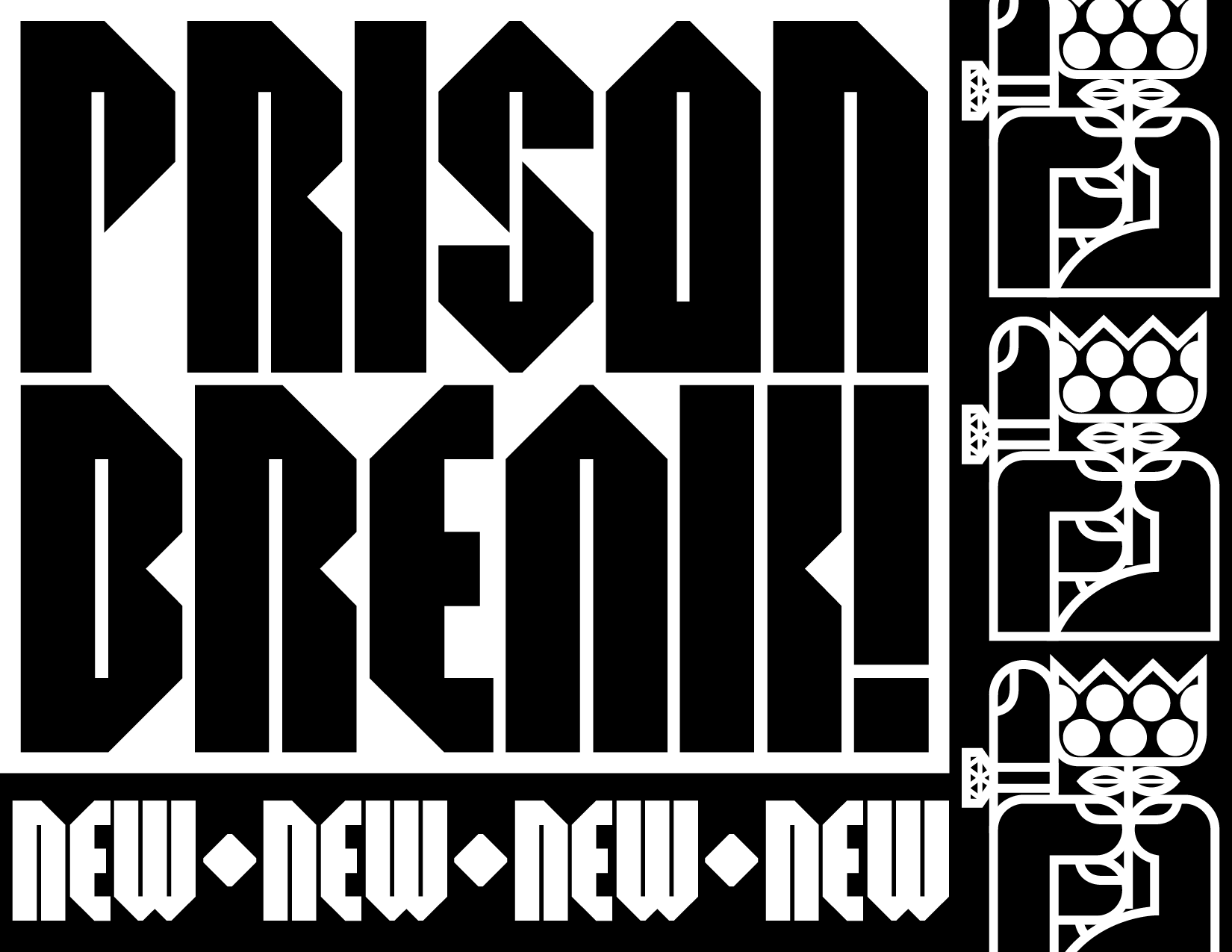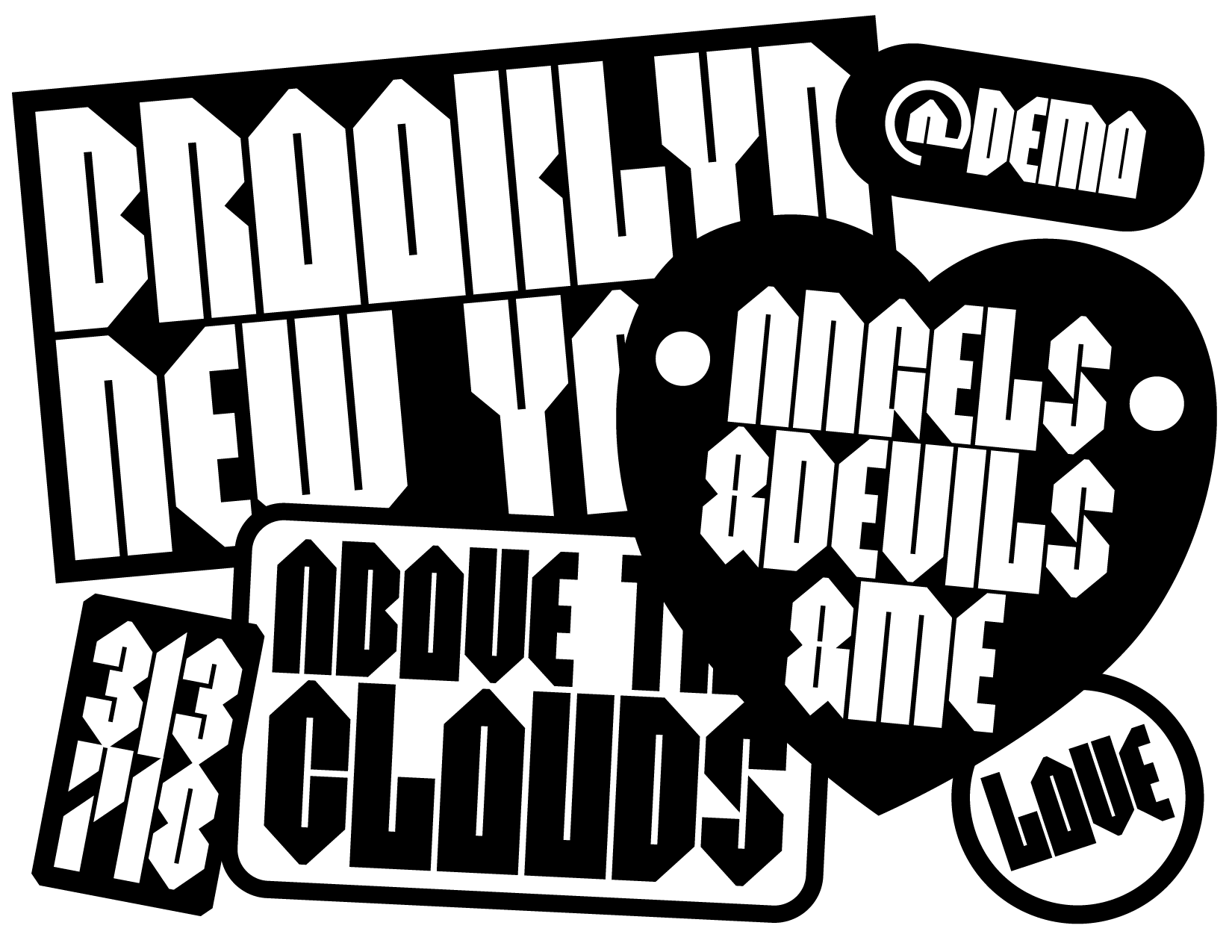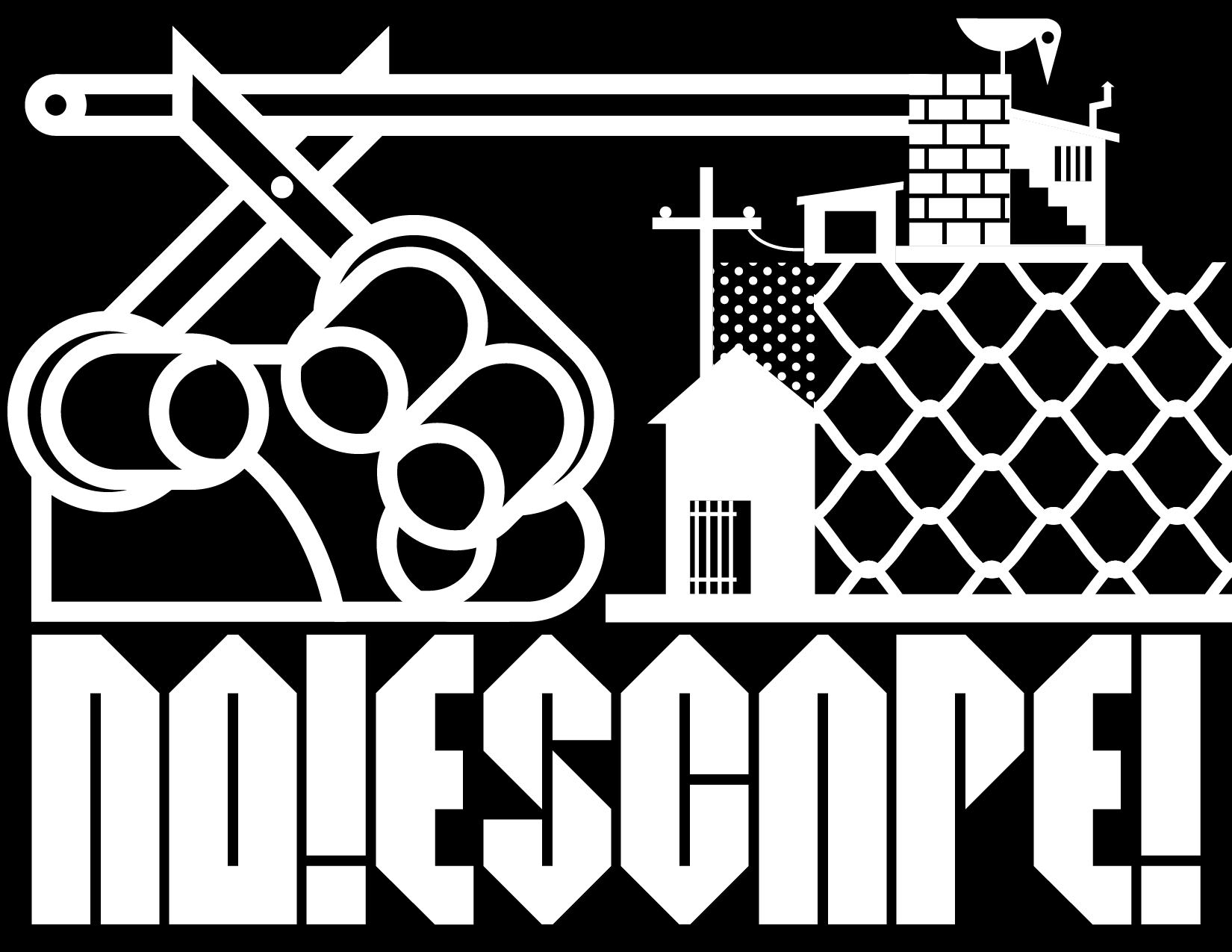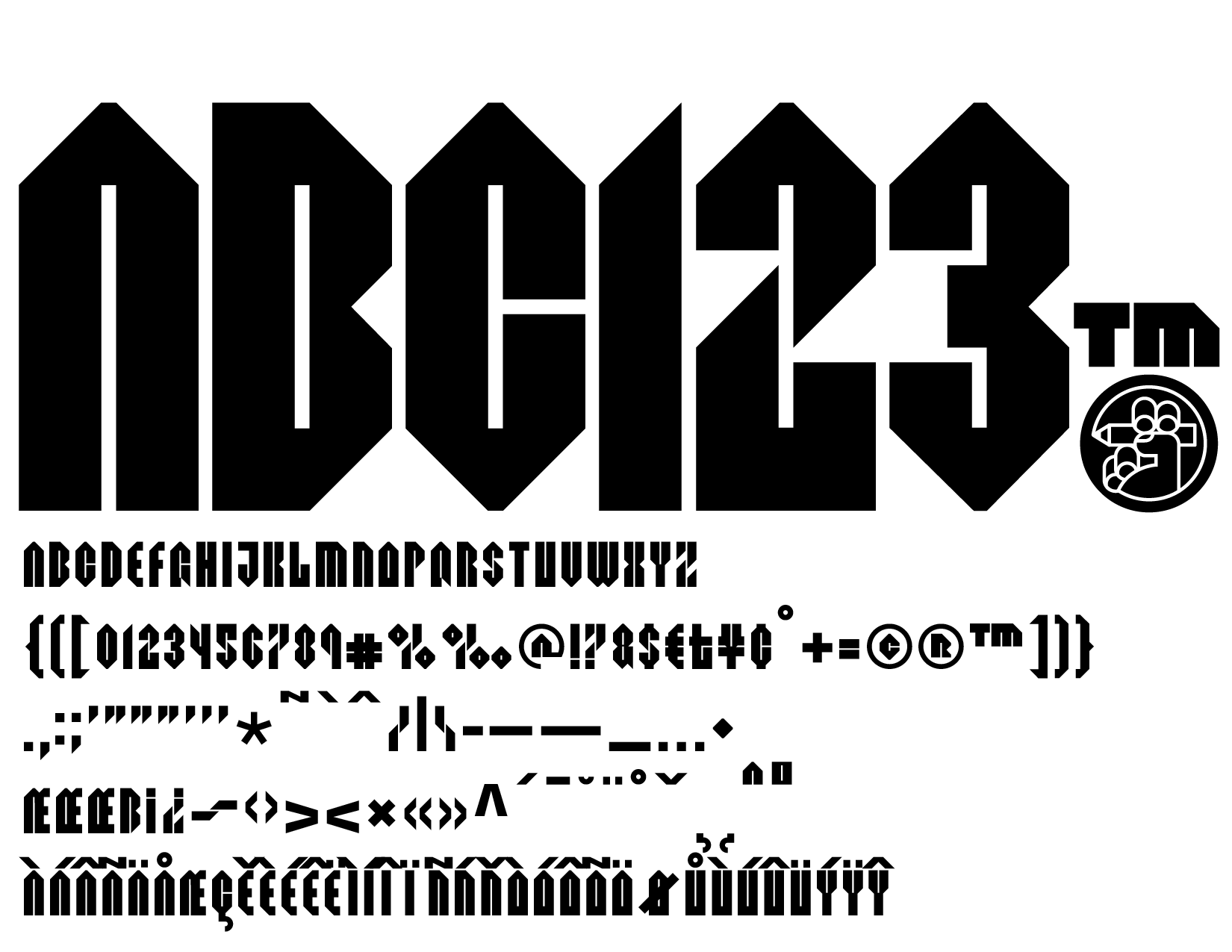
Prison Break
The first drawing of the letter forms appeared as sketches back in 2011. At the time I was trying to find a typeface that represented a gritty, New York City aesthetic to make a 'zine about a fictional character called ‘Mr. Rubbish’ who was on a series of misadventures throughout Gotham. Bold and tall like skyscrapers with sharp edges. Like the movie poster for Mean Streets, but mean-er. Lubalin/ITC-inspired, but with a more brutal form. Ten years later, in the dark days of the pandemic with time and no job to bother me, I rediscovered the sketches and quickly scaled it to a basic character set. With everything as bleak as it was, making things was my escape, my Prison Break. In 2025 (with the assistance of Sean Fermoyle), we formally finished this typeface, and can now offer it to the public for wider use and visual consumption.